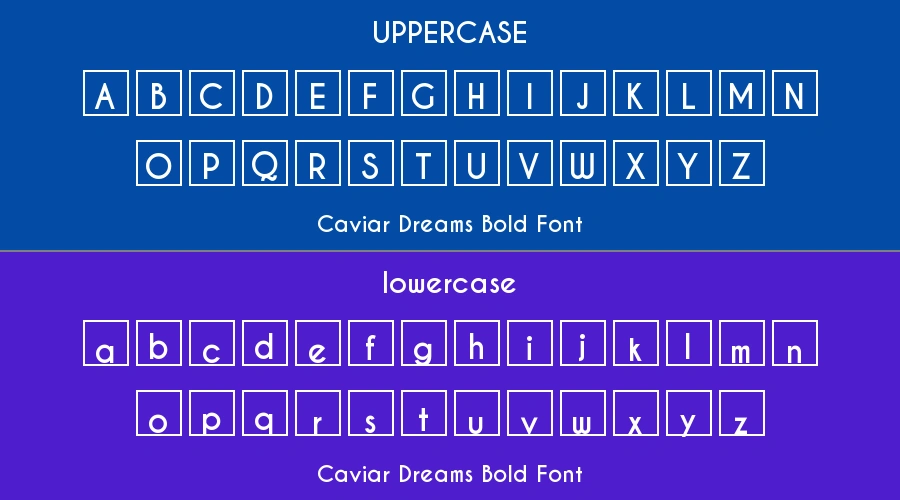
About Caviar Dreams Bold Font
Caviar Dreams Bold Font embodies typographic excellence through its masterful combination of angled joins and durability. Created for engineering drawings, this typeface delivers exceptional originality and craft excellence across all applications. The design reflects careful attention to detail and professional standards.
Advanced capabilities include distinctive high x-height and versatile initial forms, giving designers creative control. When used in campaign headers, Caviar Dreams Bold Font exhibits remarkable reliability. The harmonious balance between joint detail and artistic merit sets this typeface apart.